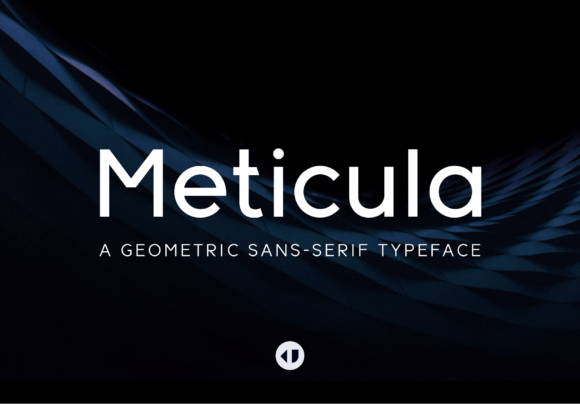
Unveil the beauty of Meticula Font, an exquisite sans-serif font family designed to captivate and command attention in the digital realm. This collection of 18 meticulously crafted fonts embodies the essence of modern aesthetics, empowering you to create visually stunning designs that leave a lasting impression.
Embark on a typographic journey with Meticula, a font family inspired by the sleek lines and geometric shapes of contemporary design. Its crisp and clean letterforms exude elegance and sophistication, while its diverse range of weights and styles offer endless possibilities for creative expression. Elevate your website, branding, and design projects with the allure of Meticula.
Experience the versatility of Meticula, a font family that effortlessly adapts to a multitude of design concepts. Whether crafting captivating headlines that demand attention, composing elegant body text that invites readers to delve deeper, or creating stunning logos that embody your brand identity, Meticula is your trusted companion in the realm of typography.
Immerse yourself in the world of Meticula and discover a font family that redefines modern design. Its carefully crafted characters dance harmoniously on the screen, guiding your audience through your creative endeavors with grace and poise. Let Meticula be your muse, igniting your imagination and propelling your design projects to new heights.